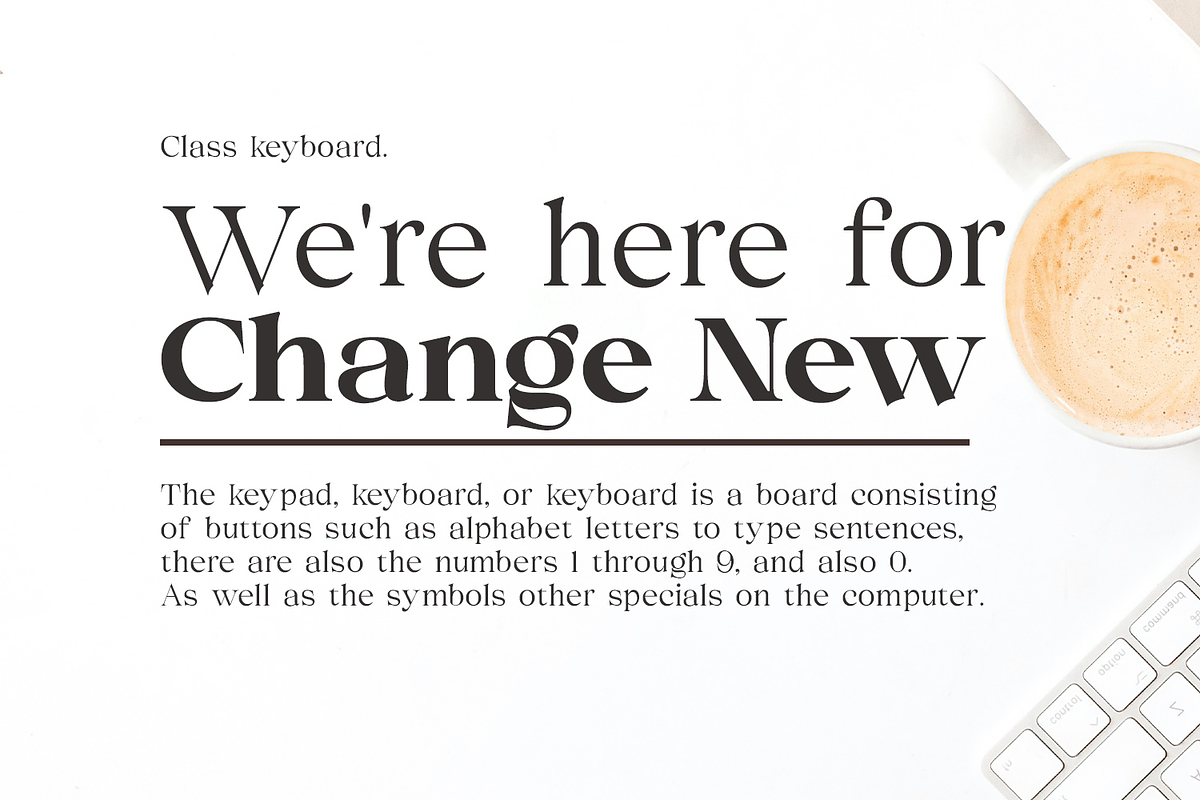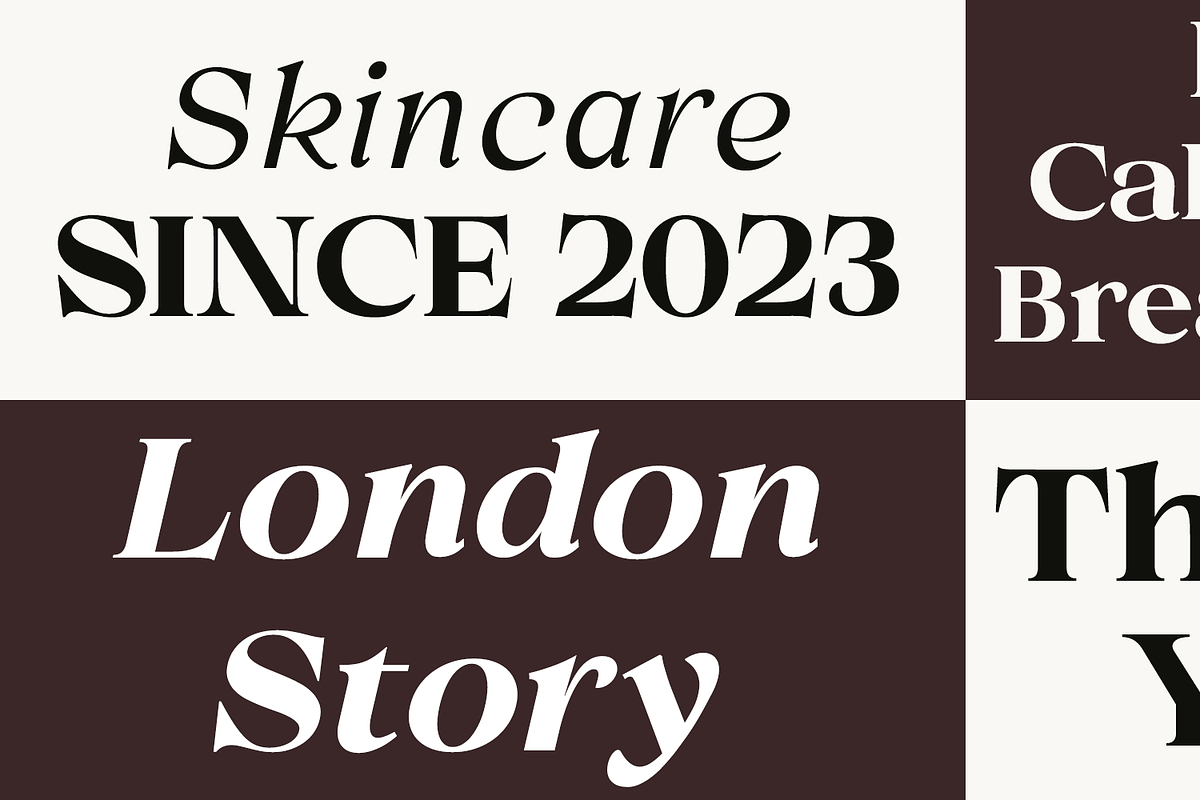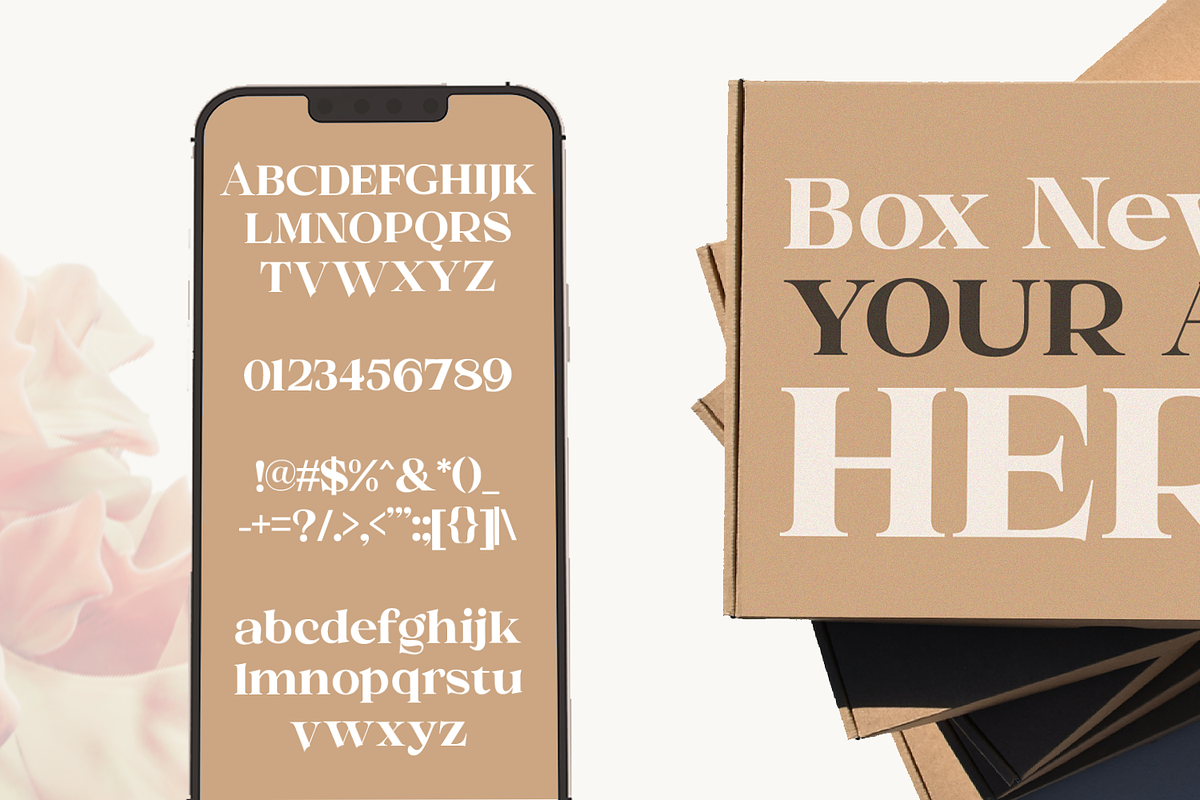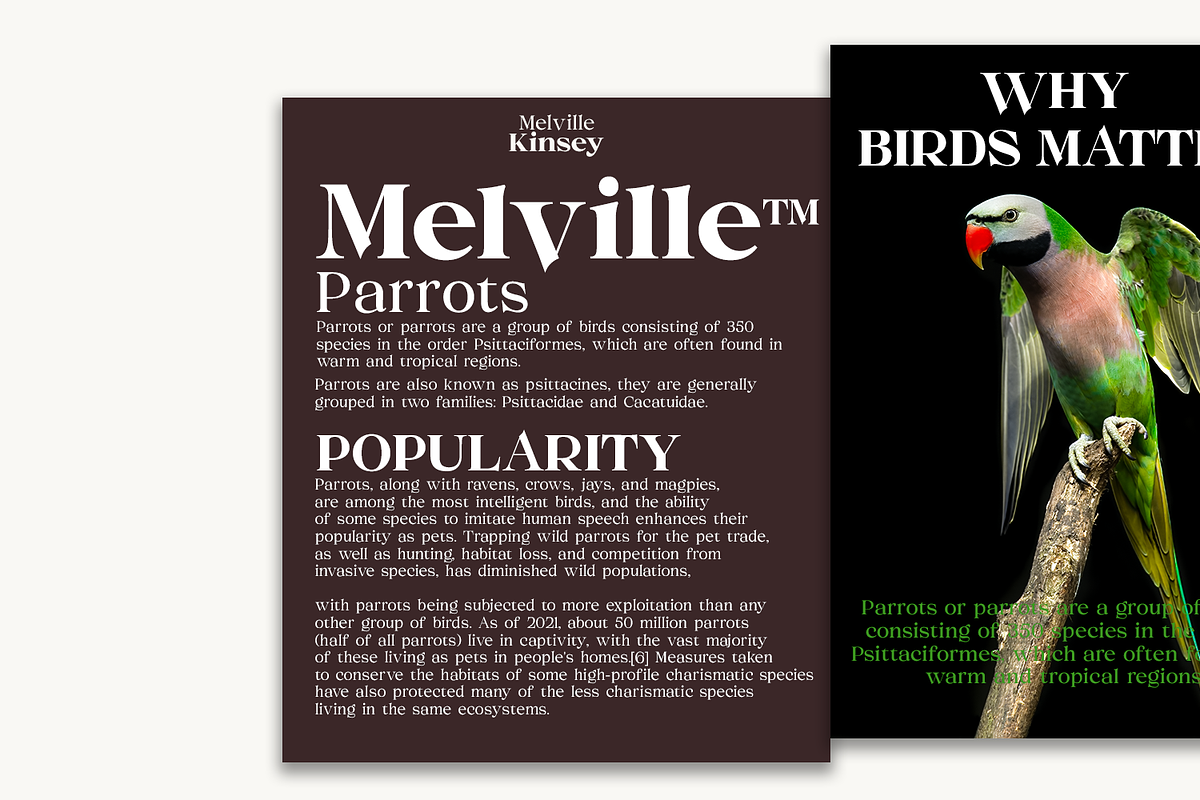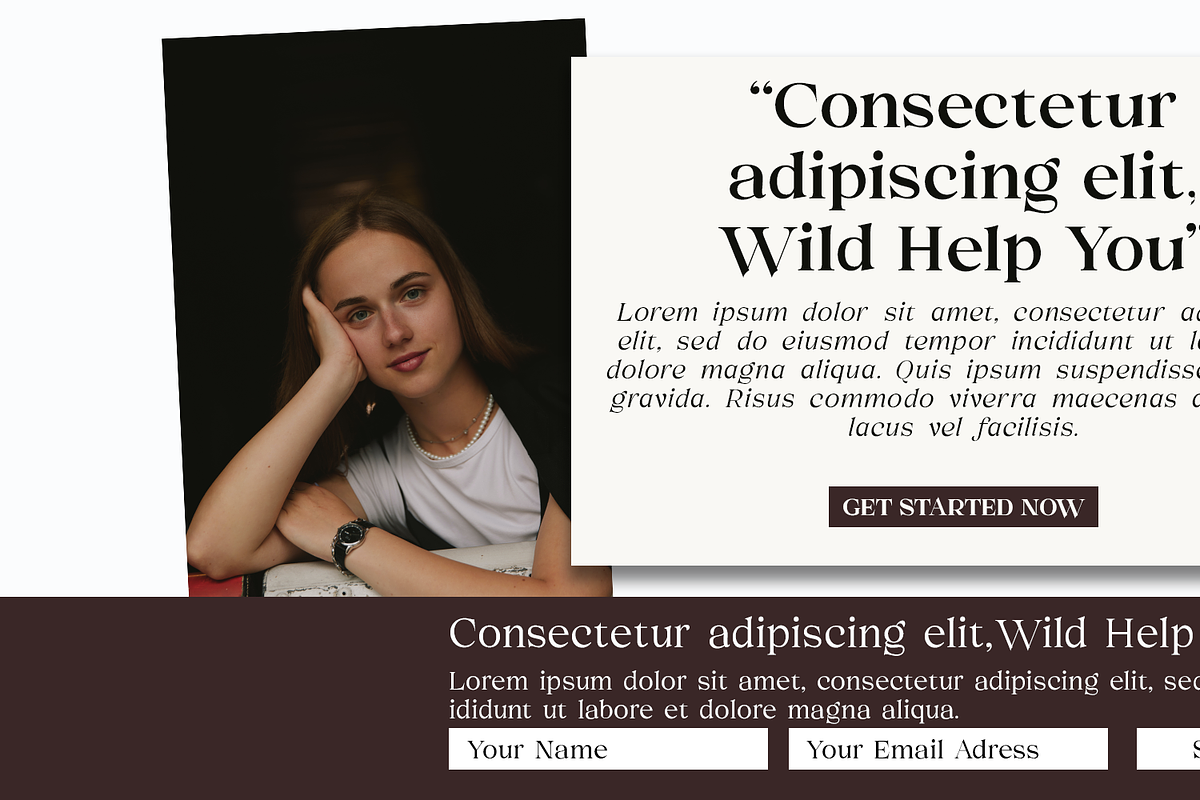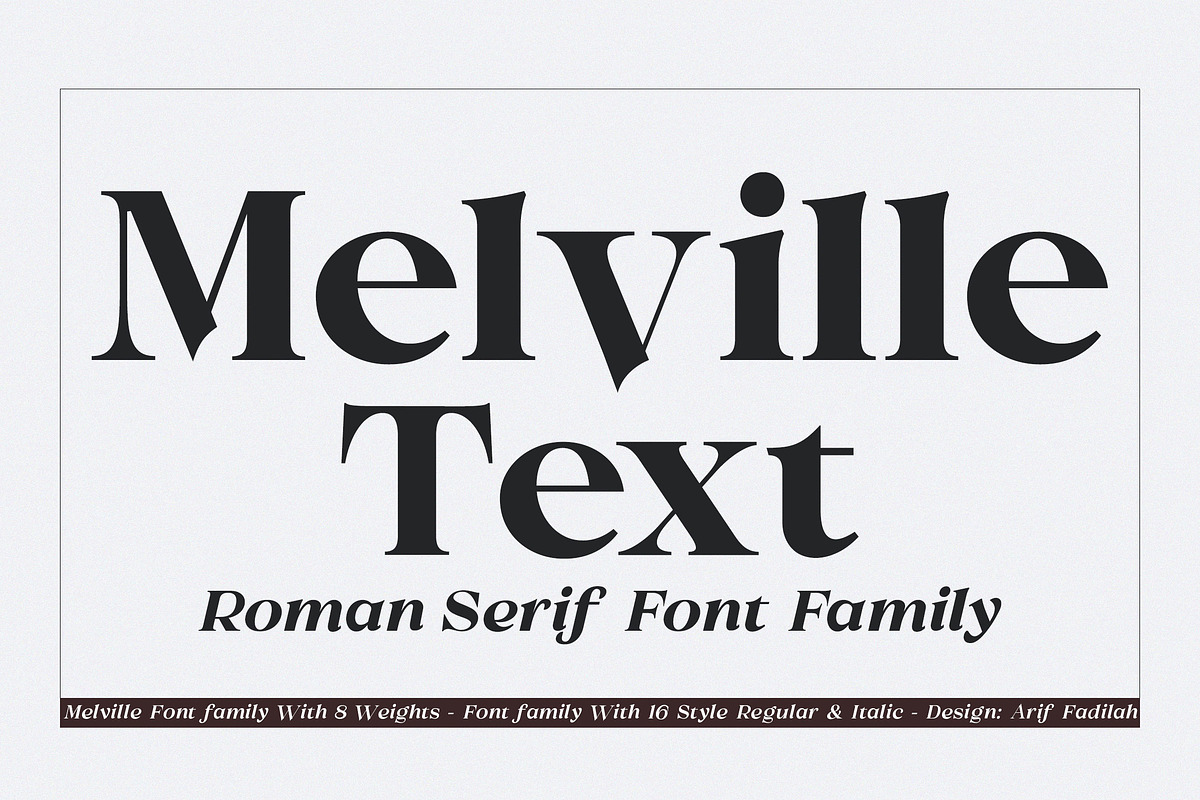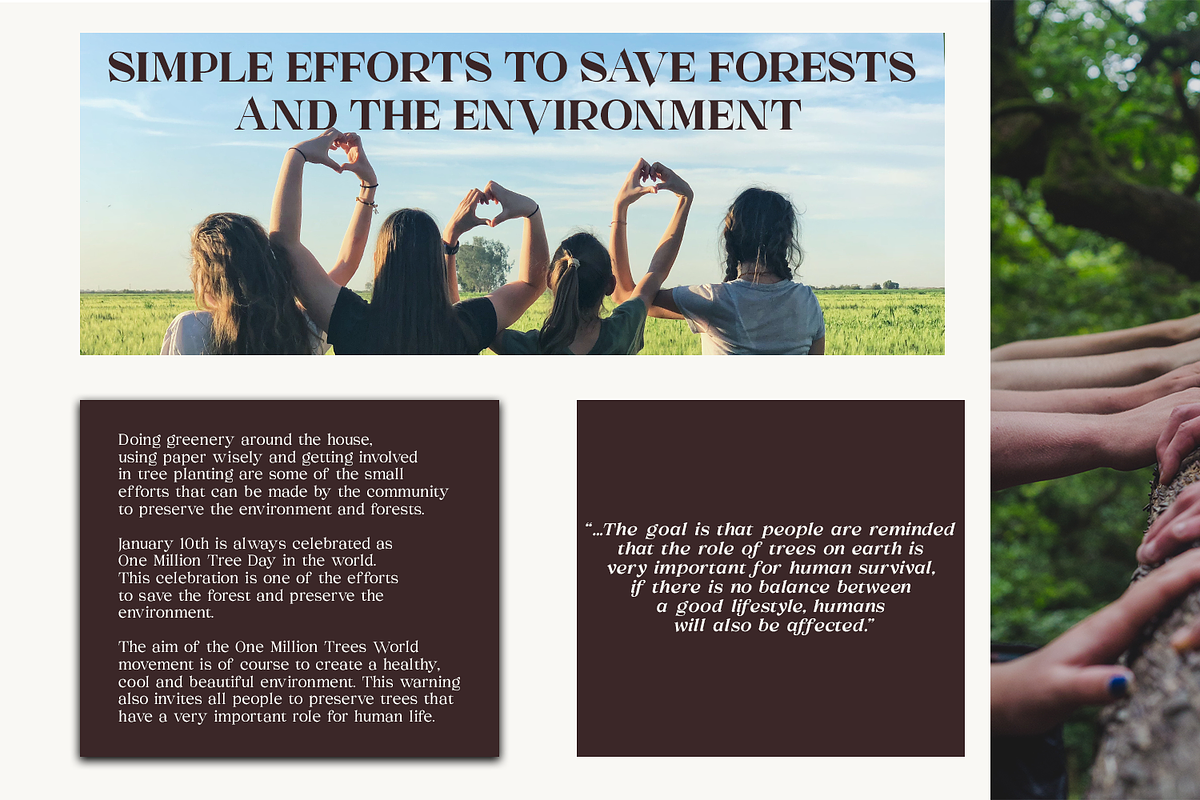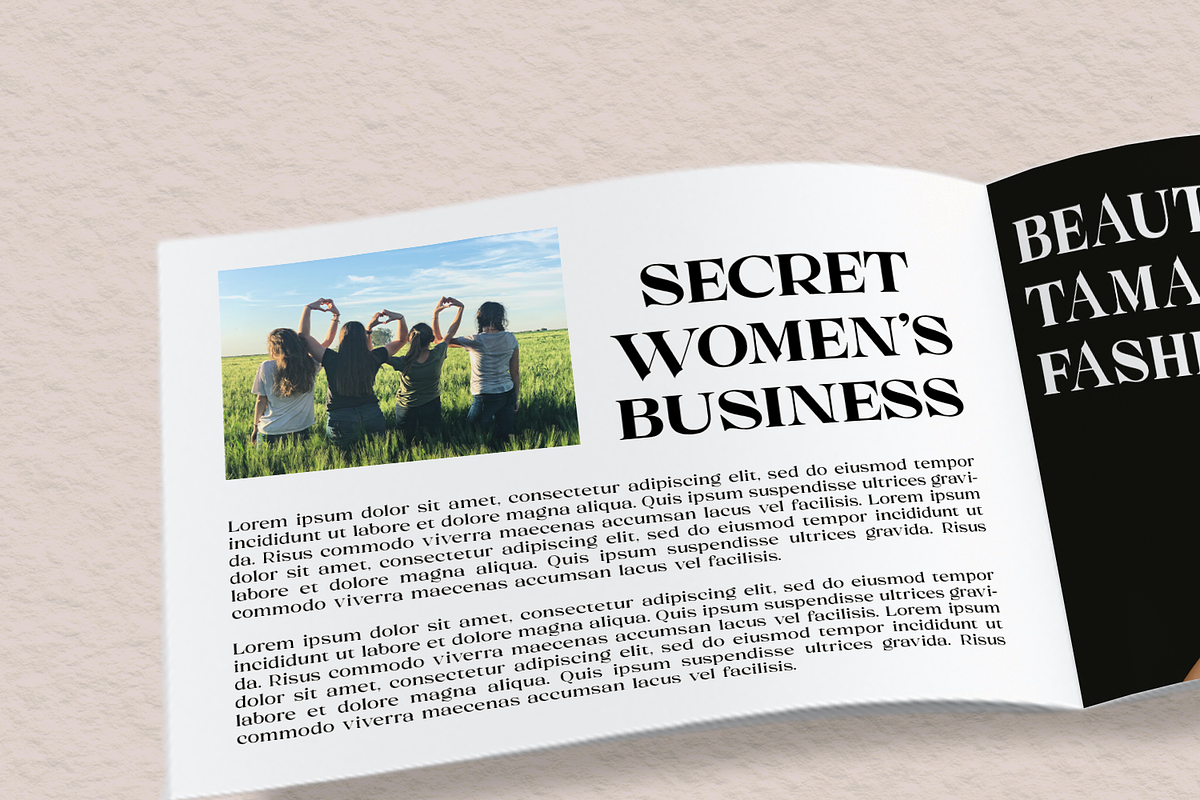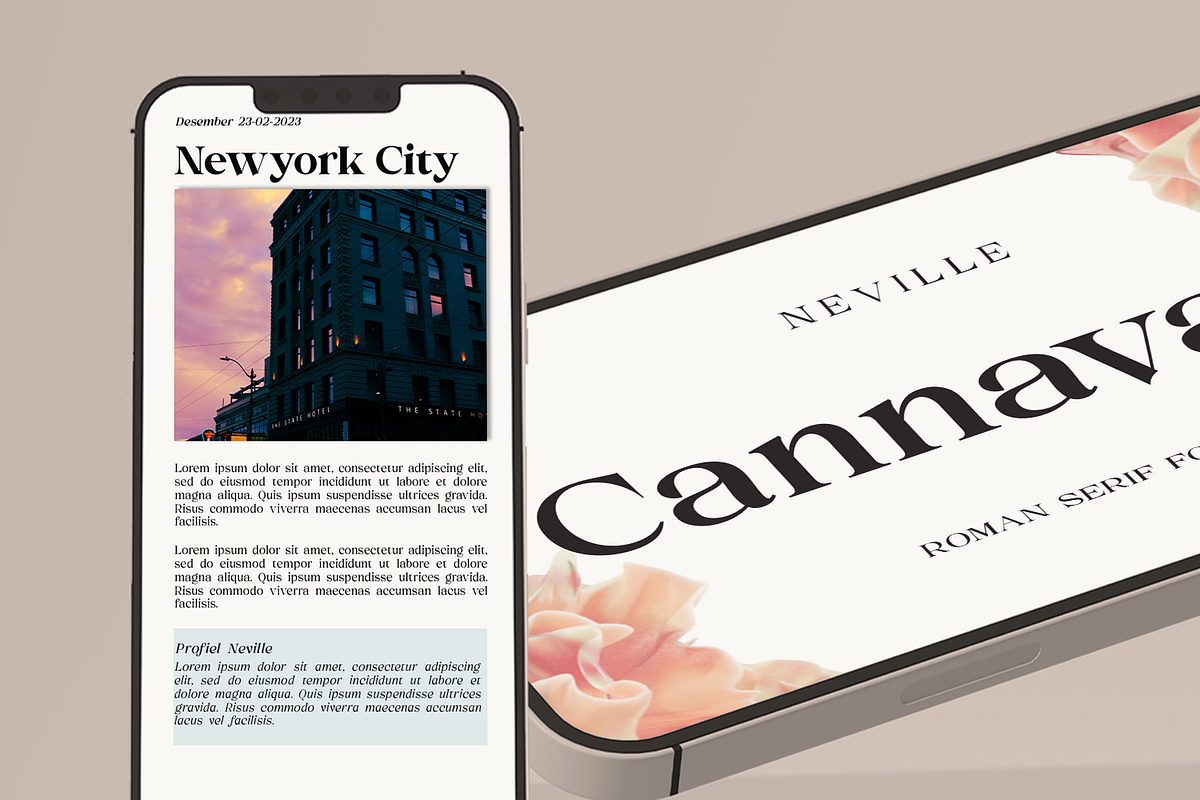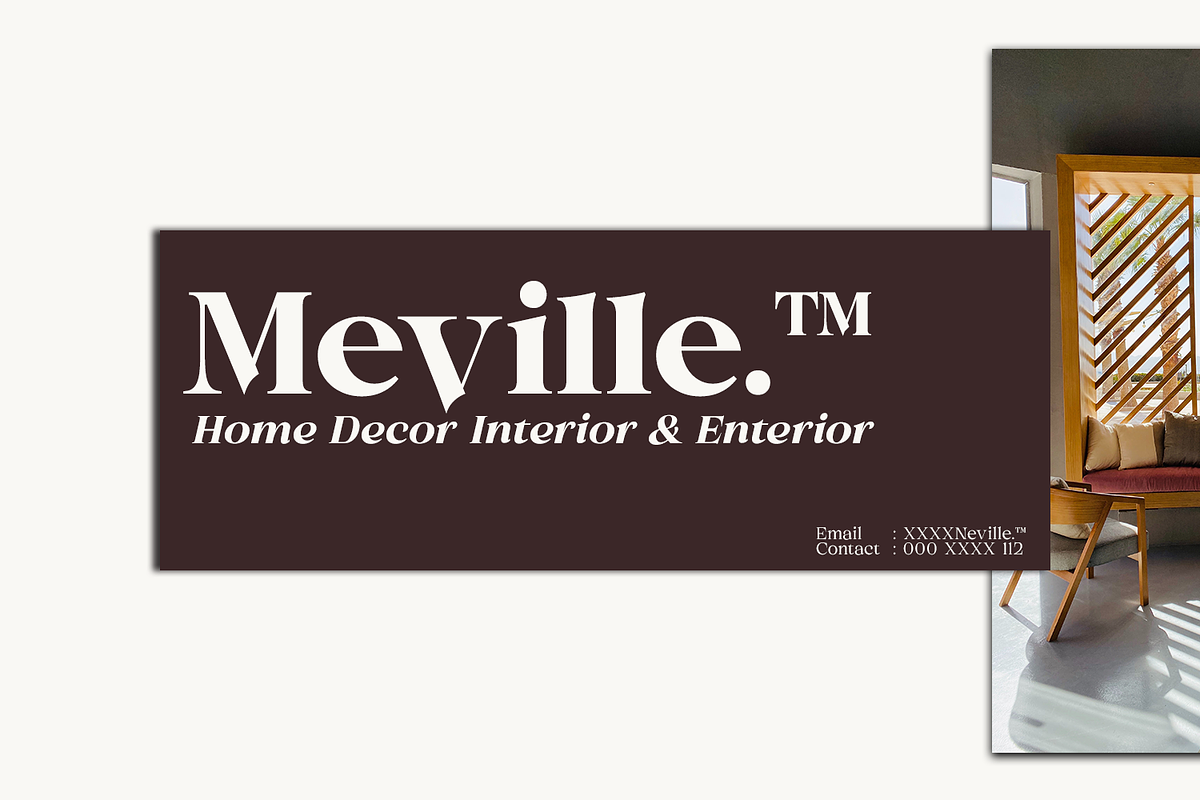
Melville Text - Roman Serif Family
Melville Family is a meticulously crafted font collection that falls under the transitional serif classification. It offers a variety of font styles, including italic and serif old style, with a total of 16 unique styles to choose from Melville is a versatile and flexible solution that can be used in various industries such as stationary office, newspaper, cover book, web design, and text. Discover how Neville can enhance your projects and meet your specific needs.
- Uppercase and lowercase letters
- Symbols & numerals
- Standard ligatures